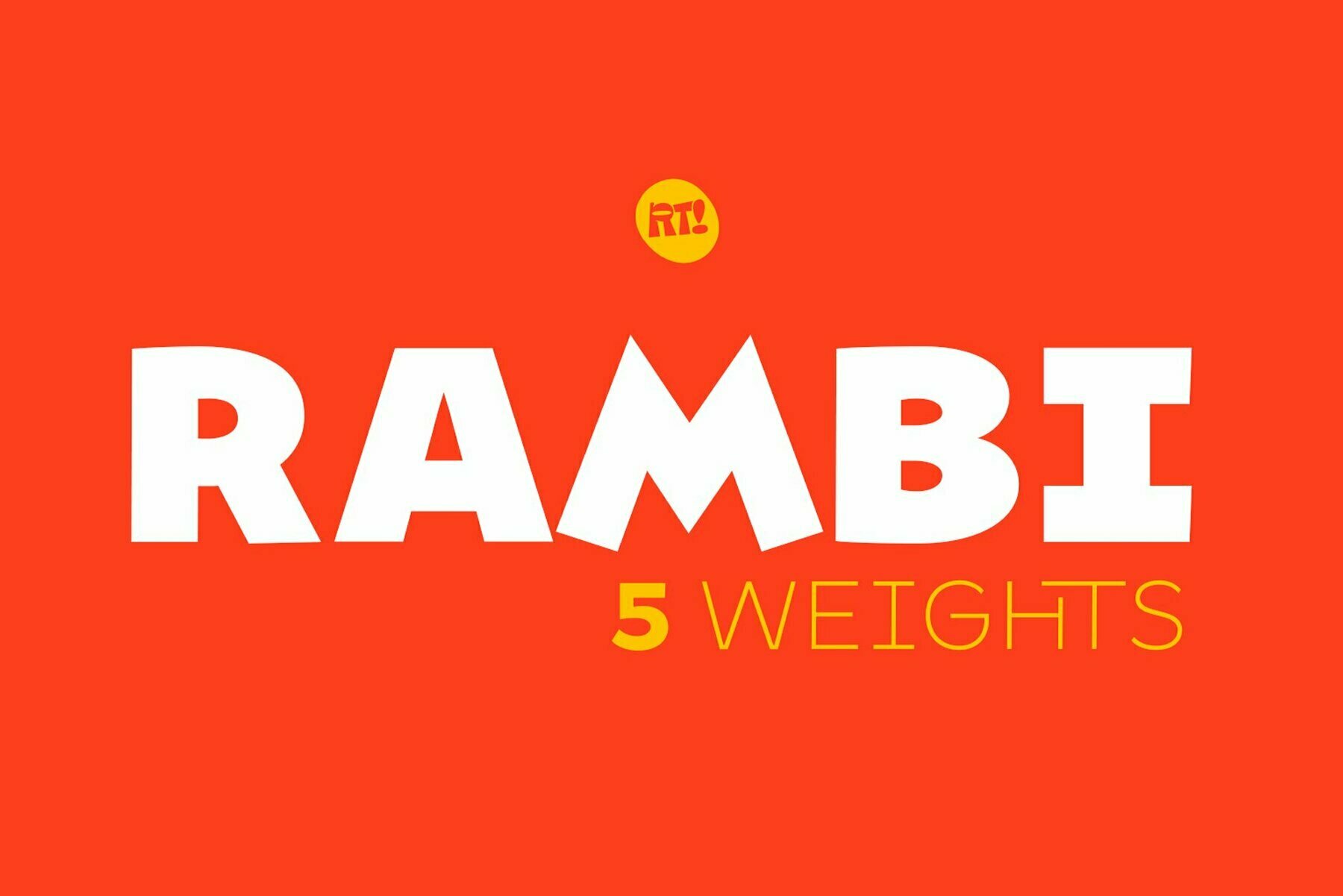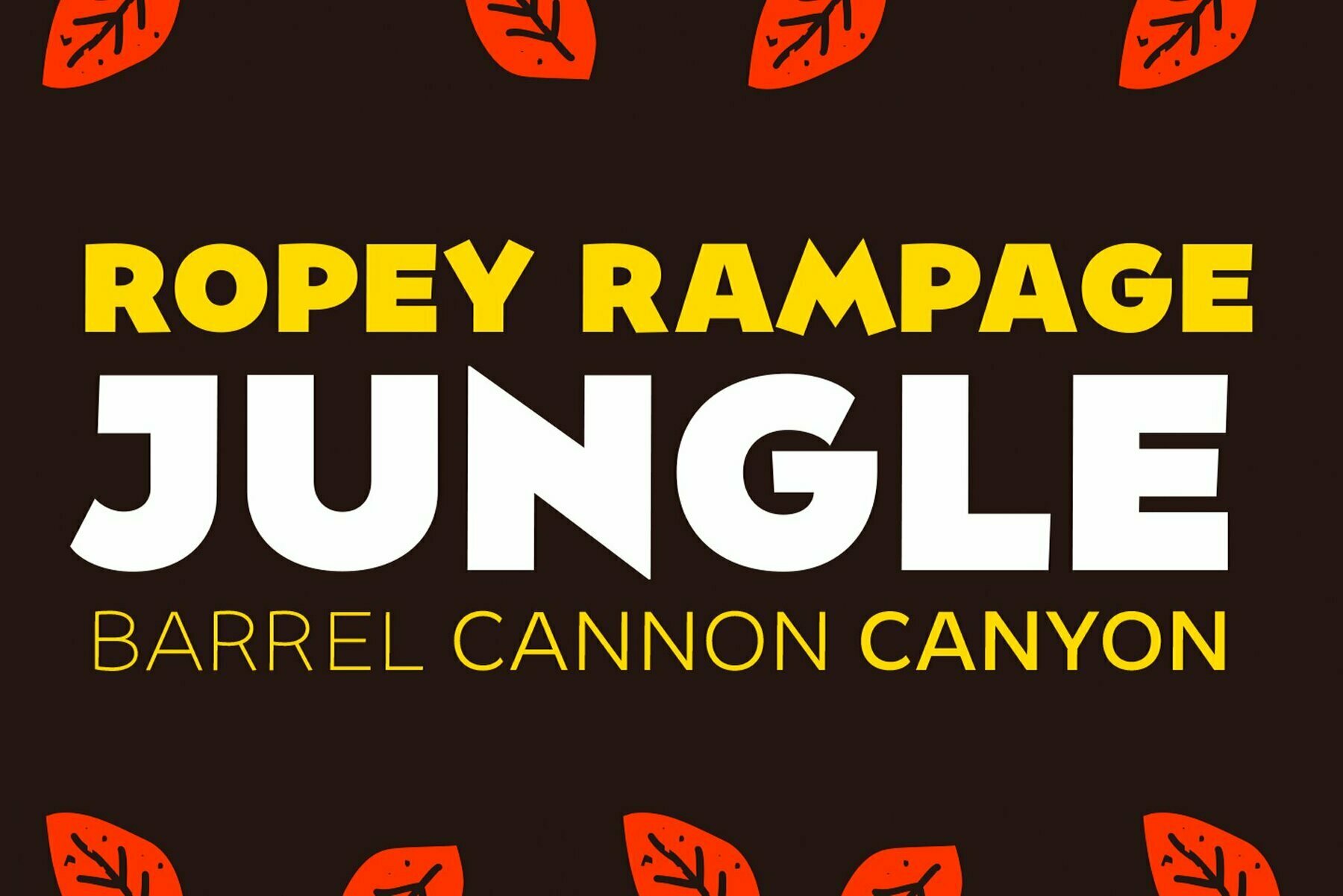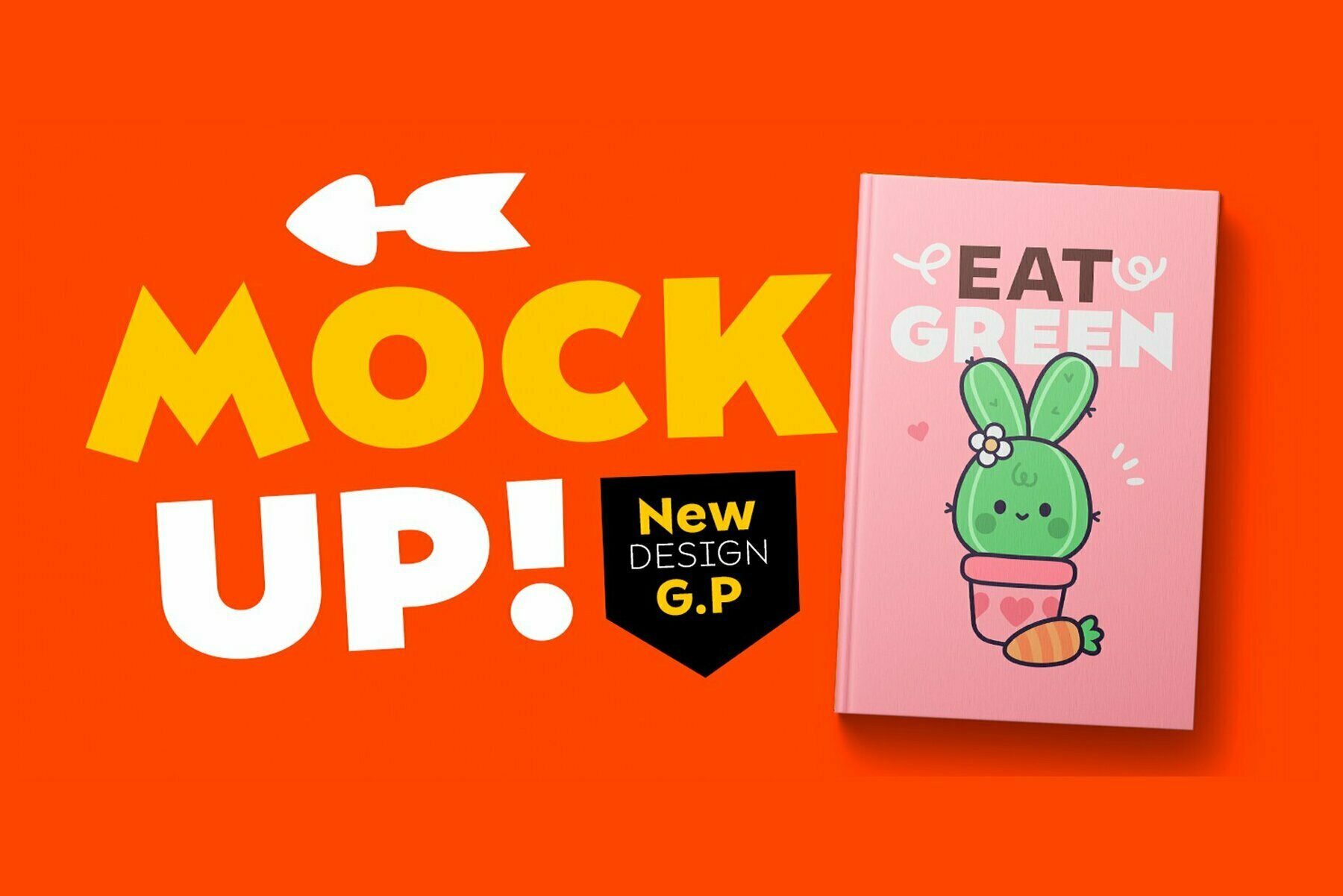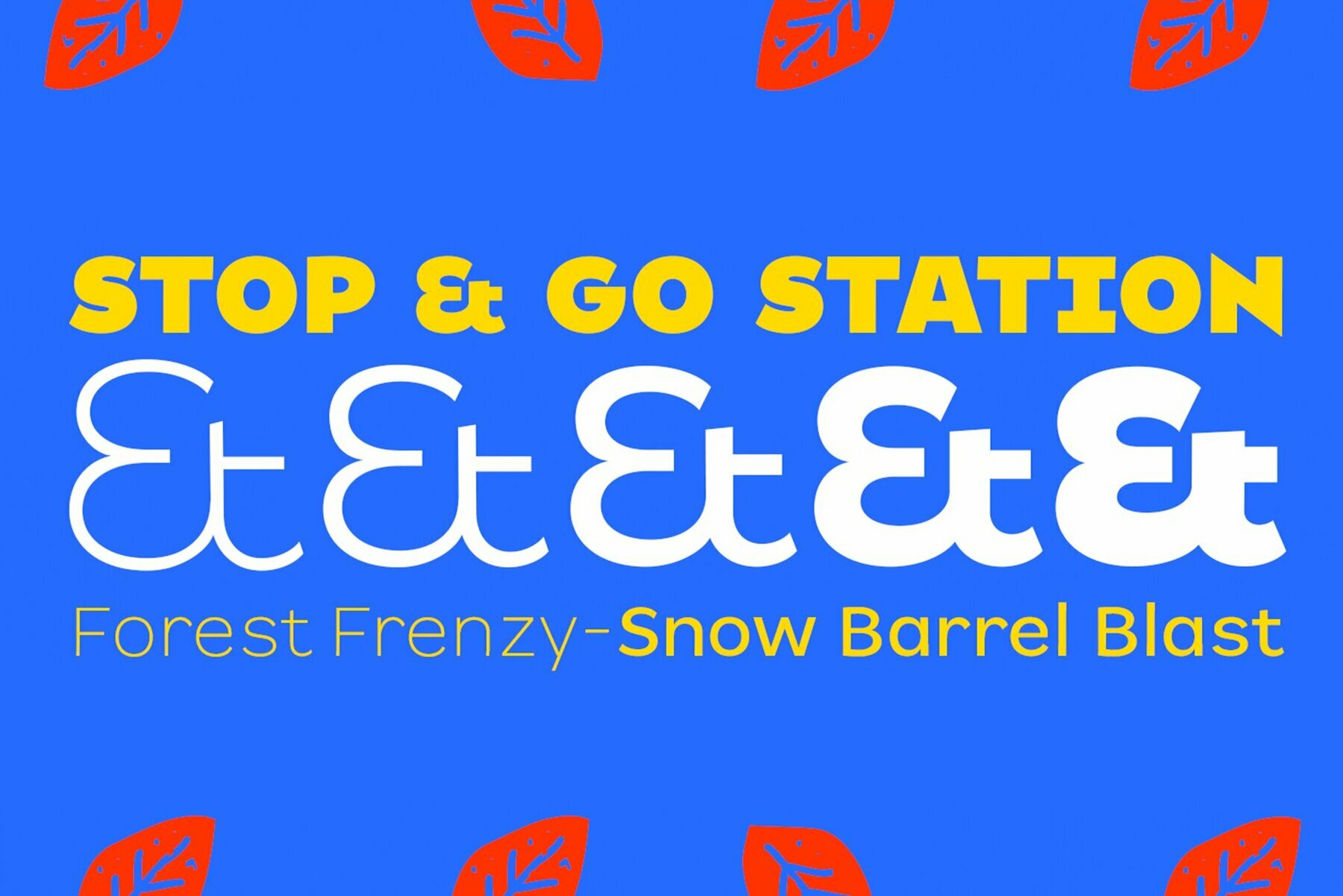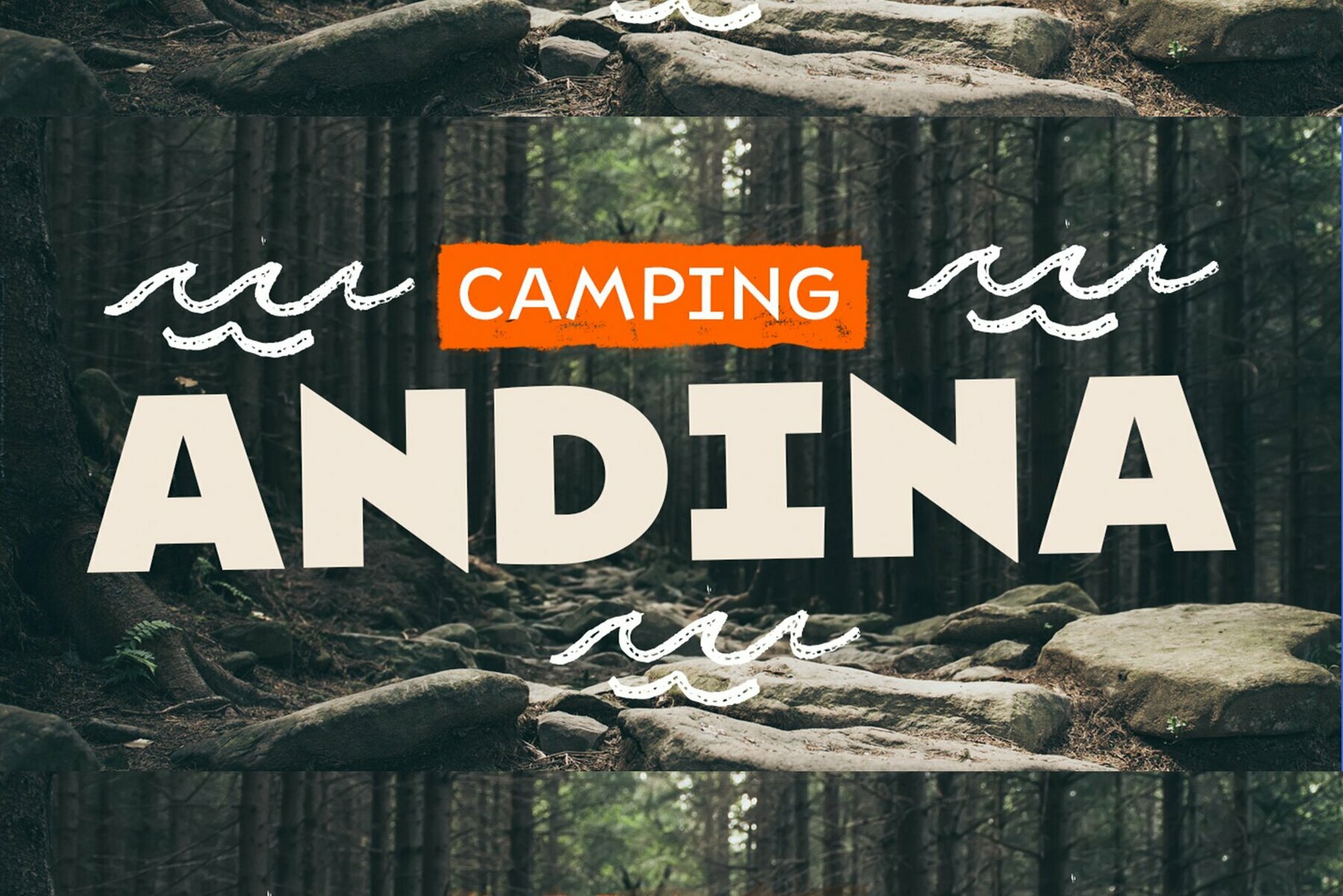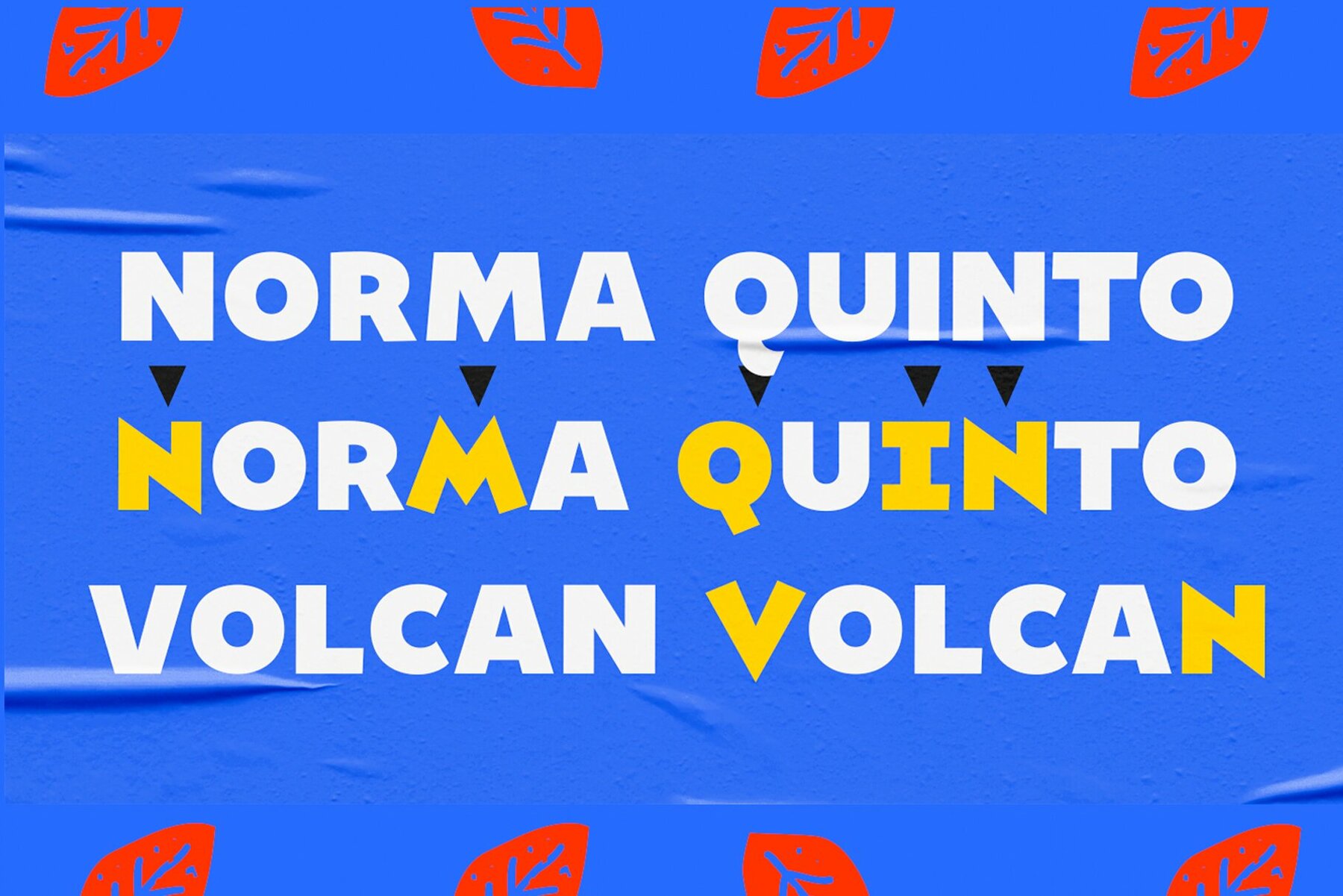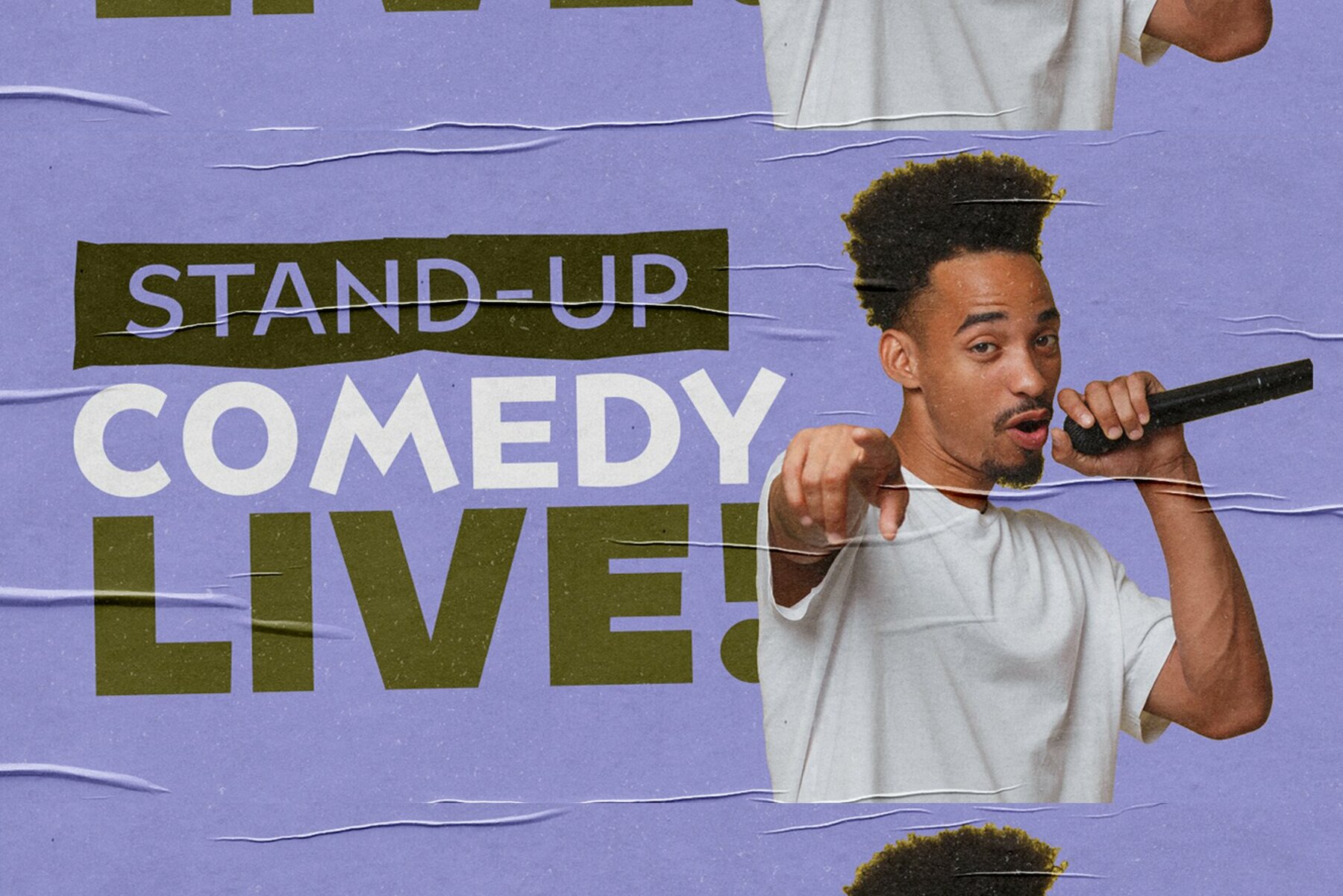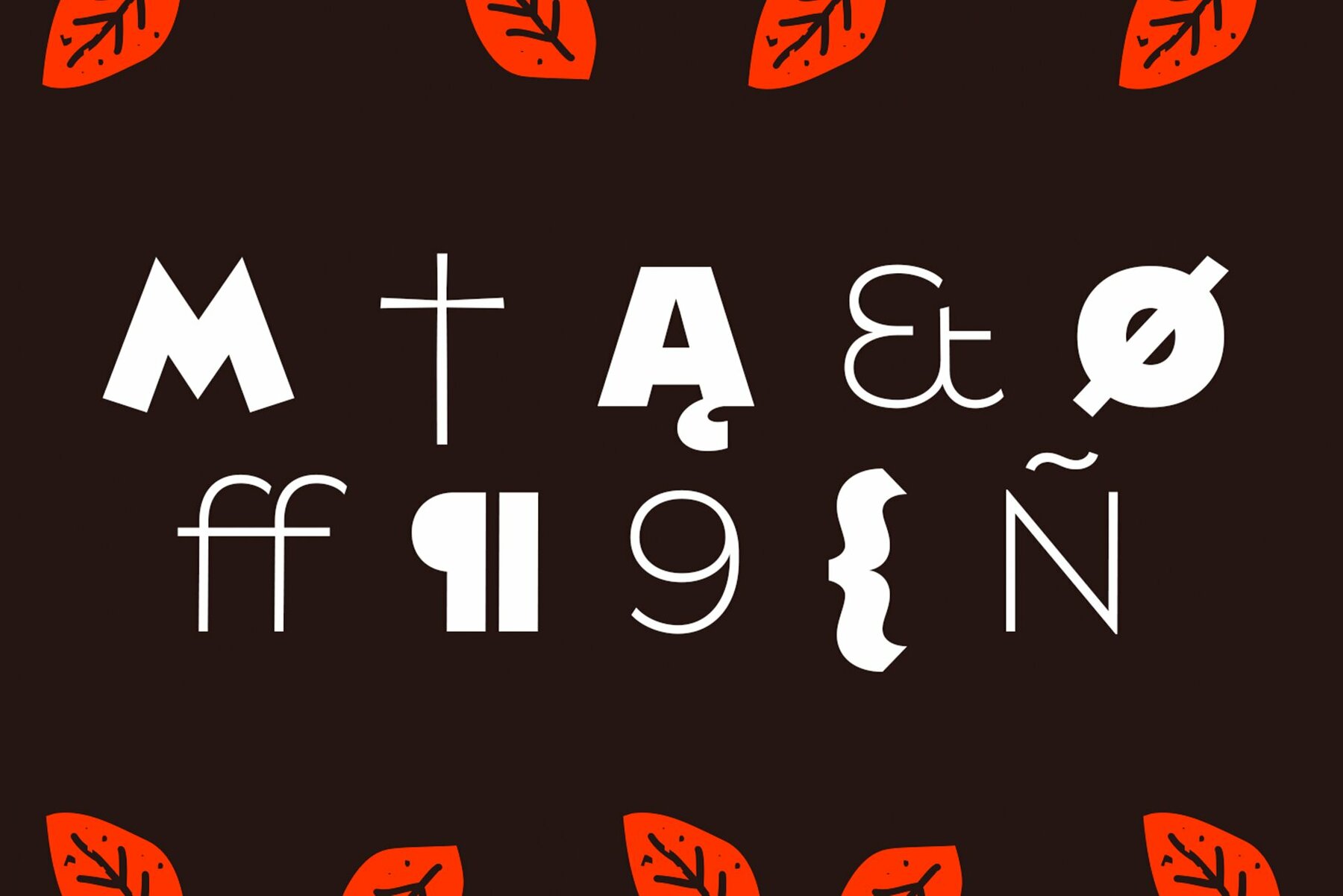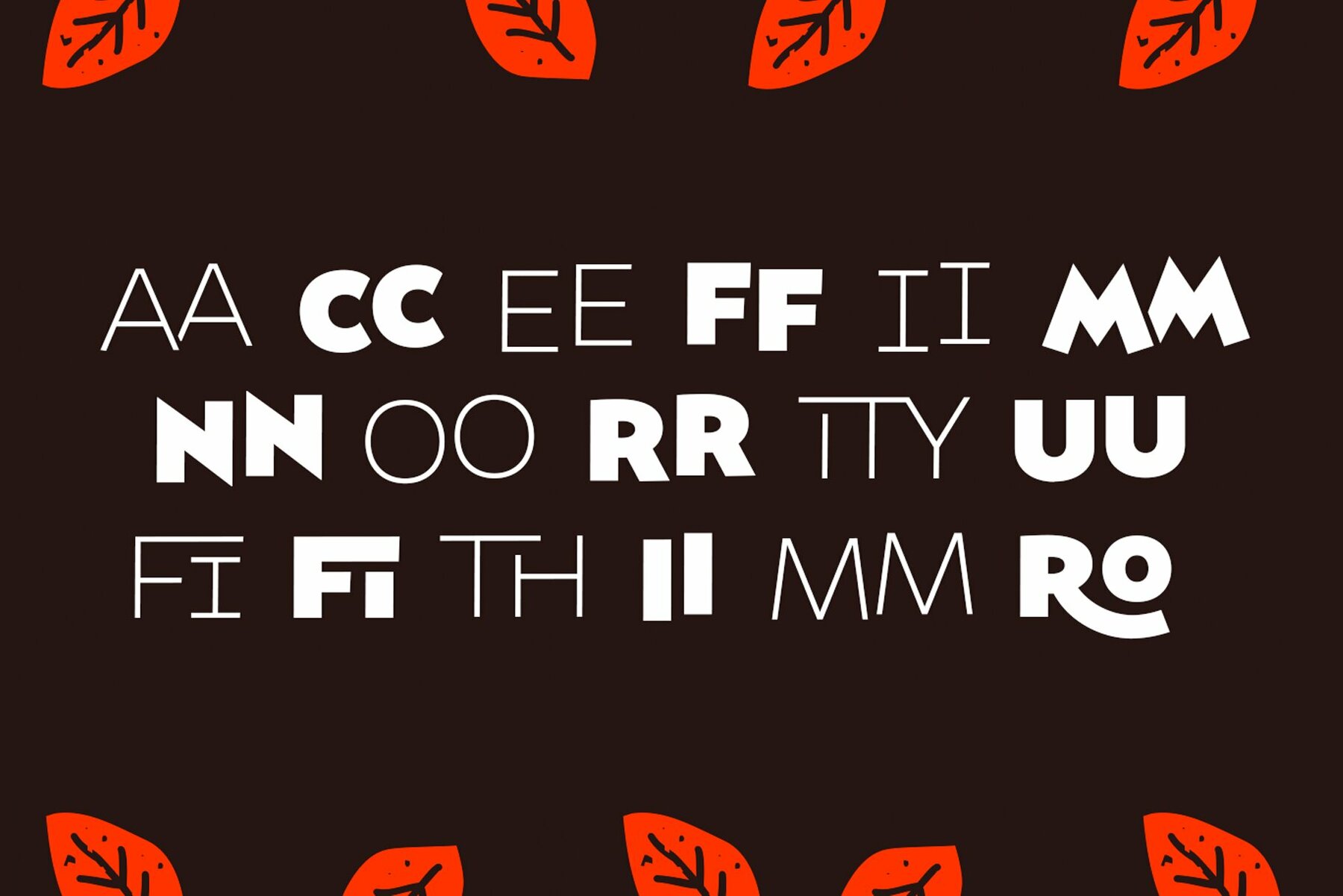
Rambi Font
Bring whimsy and delight to your design projects with Rambi, a charming display font designed by RodrigoTypo. Tailored specifically for children’s titles, Rambi’s engaging style is perfect for capturing young imaginations. Its five versatile weights inspire creativity whether used for book covers, posters, or playful branding.Rambi: A Playful Typeface for Children’s Titles